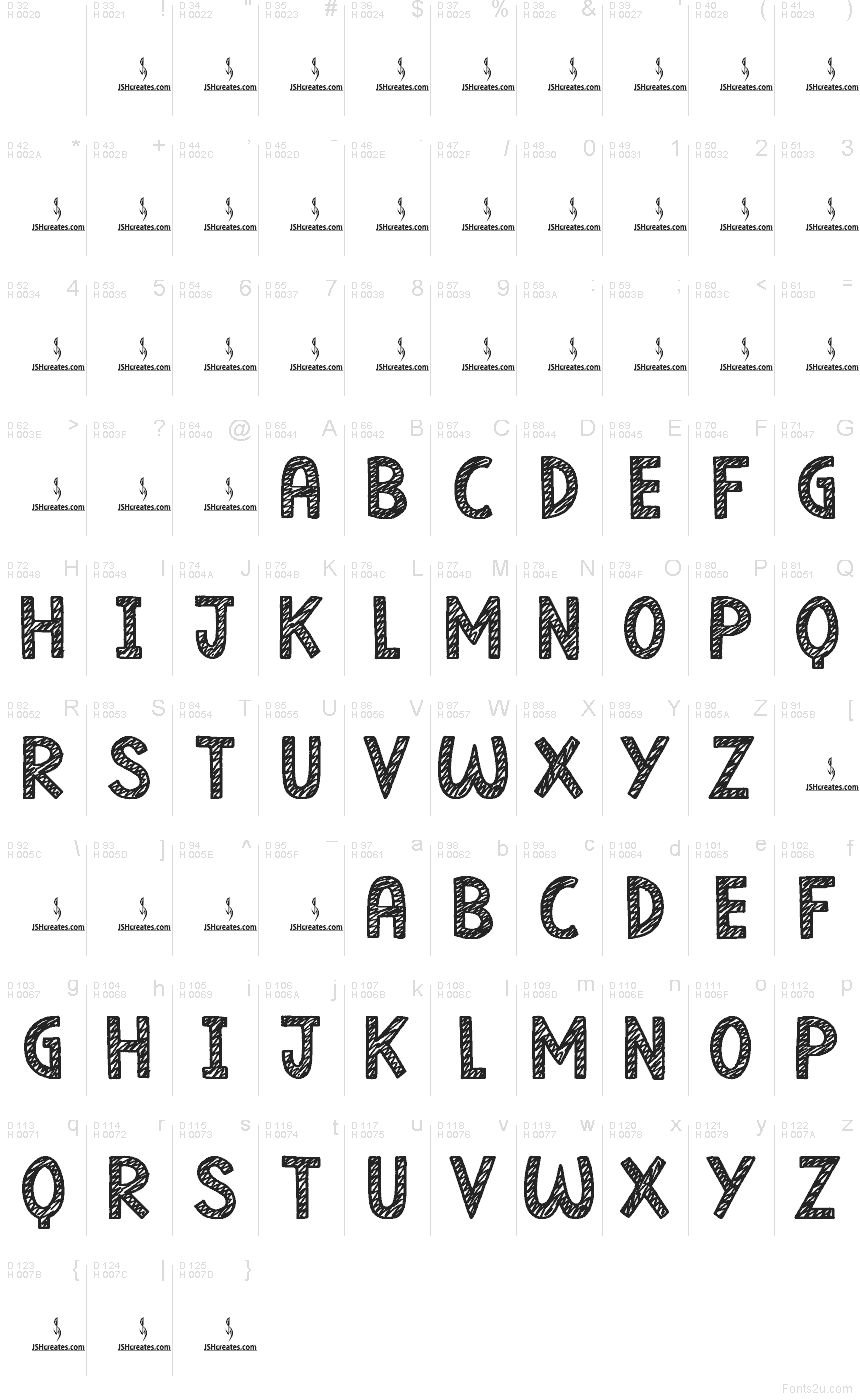
Classroom Teacher is a free hand-drawn classroom display font with the easy, sketched feel of marker notes on a whiteboard. The caps are tall, rounded, and a little uneven, with thick outer strokes and loose crosshatched fill that keeps every letter looking casual, busy, and homemade.
It fits school posters, bulletin board headings, worksheet titles, party invitations, and playful branding where a free font should feel personal rather than polished. Use it for short headlines, cover lines, or name labels when you want the letters to carry that teacher-made energy without slipping into cute script or neat geometric display styles.